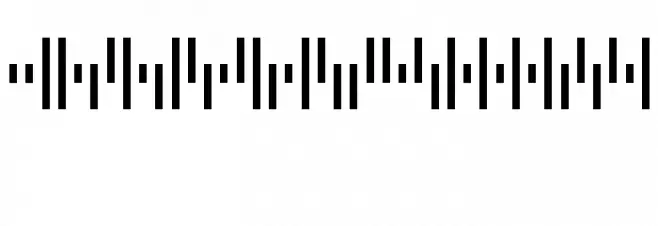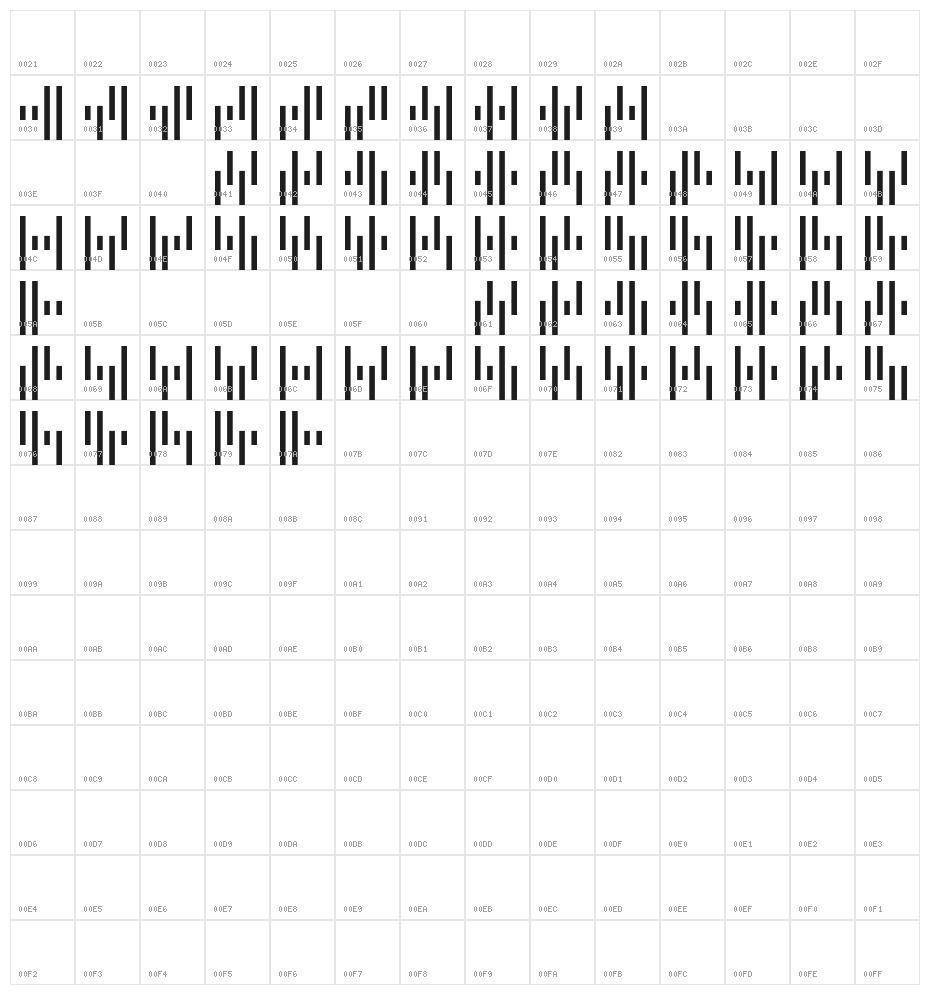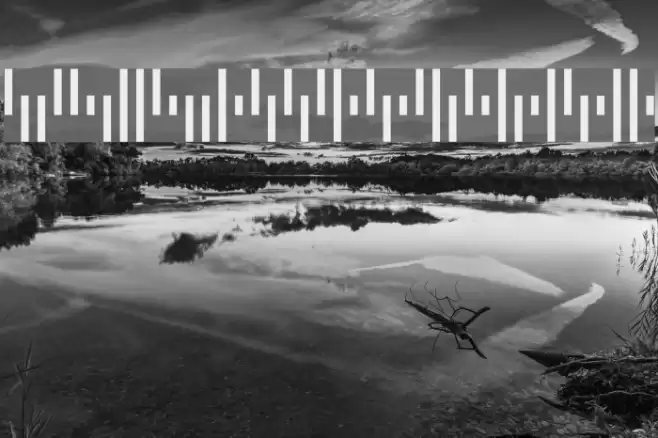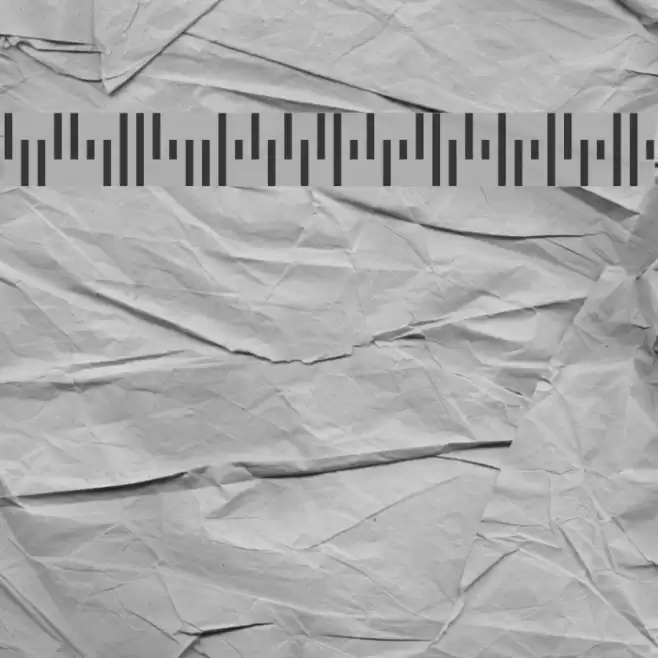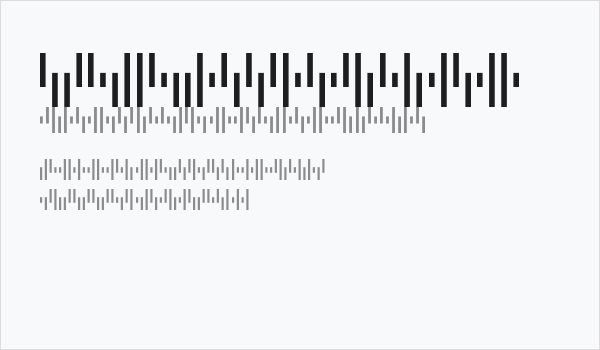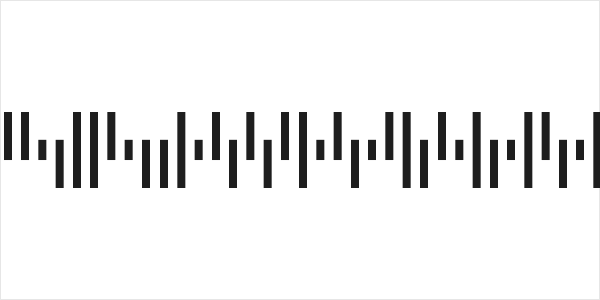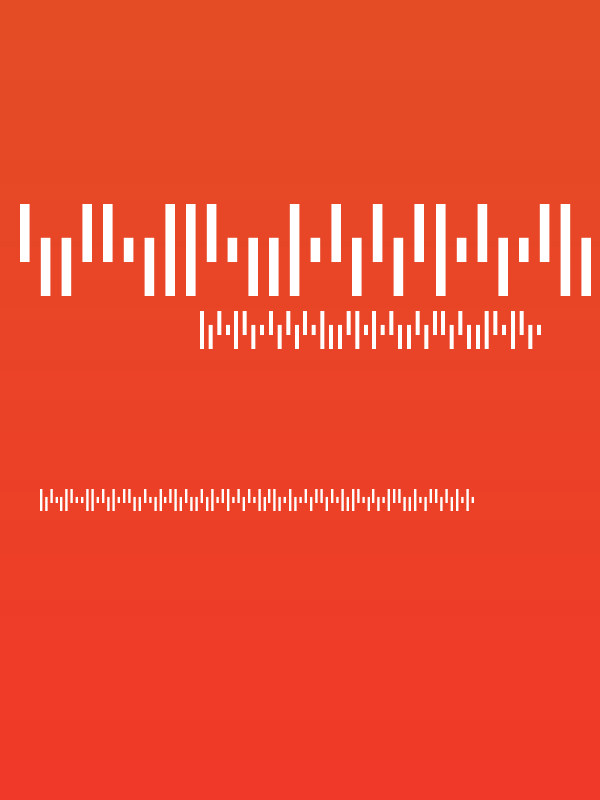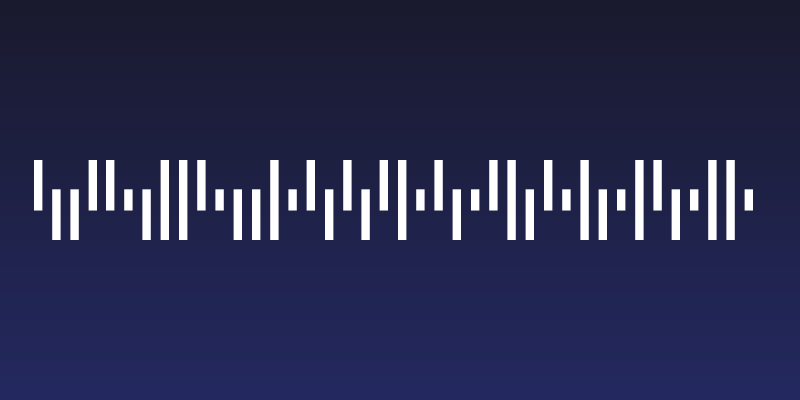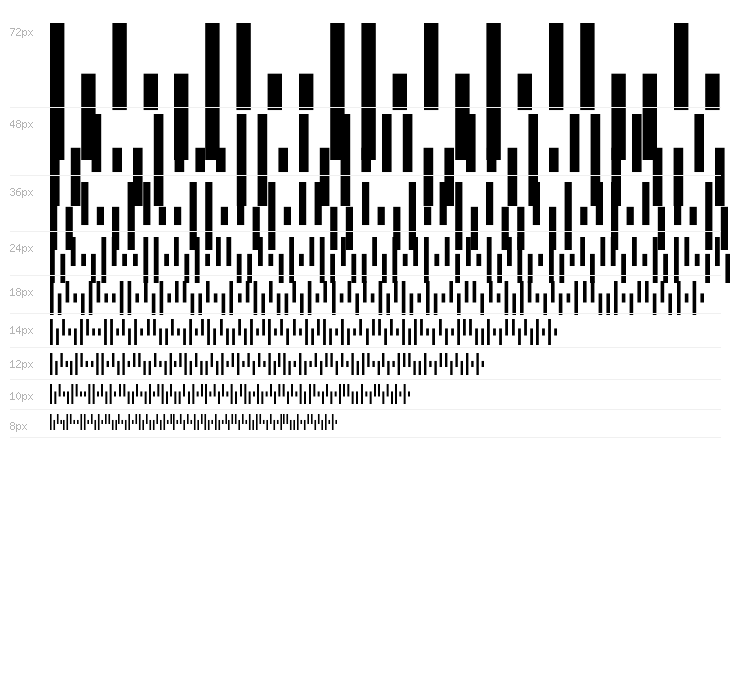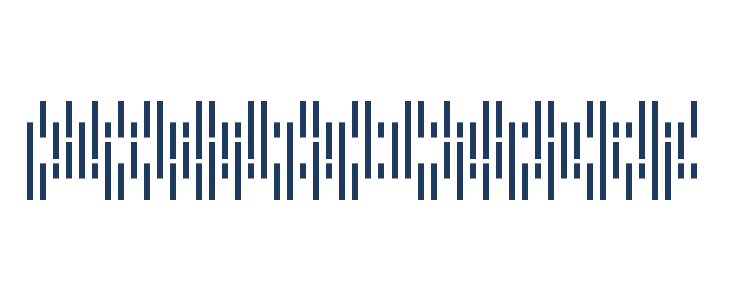
KIX Barcode Font
KIX Barcode Description
A barcode symbology consisting of vertical bars of varying thickness and spacing, designed for machine readability rather than human legibility. The design is highly geometric and utilitarian, with no alphanumeric or typographic features.
| Overall Style | Utilitarian, Modern |
| Use Case | Barcodes, Machine scanning, Logistics |
| Proposed Projects | Mail sorting, package tracking, inventory management, automated data entry. |